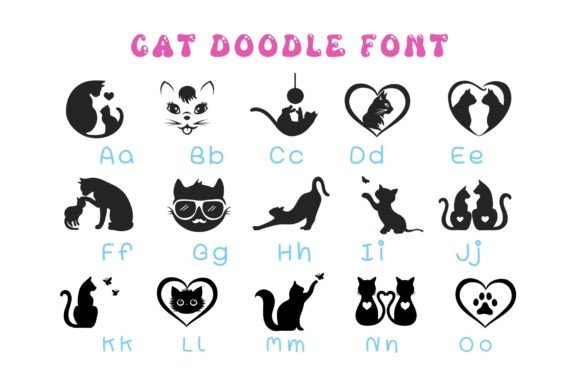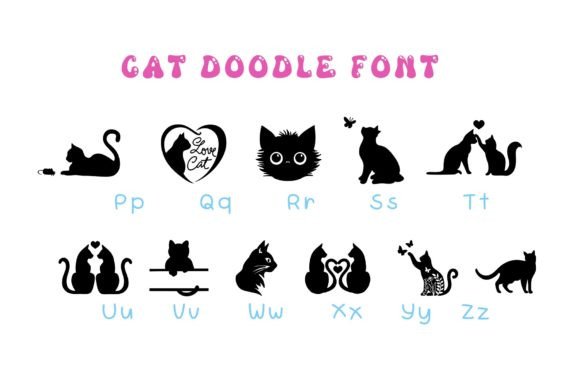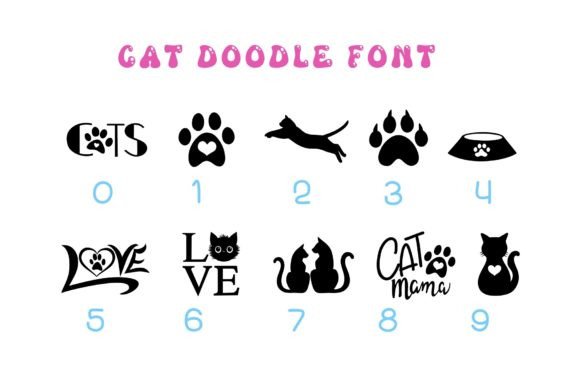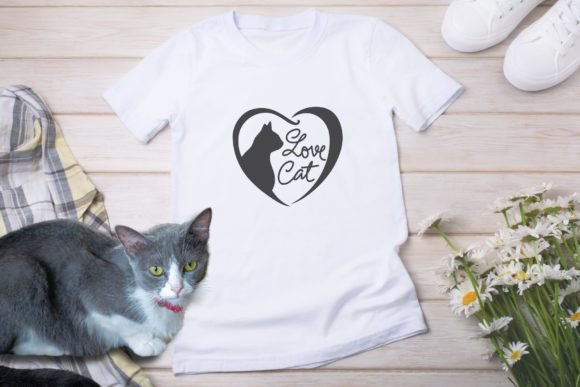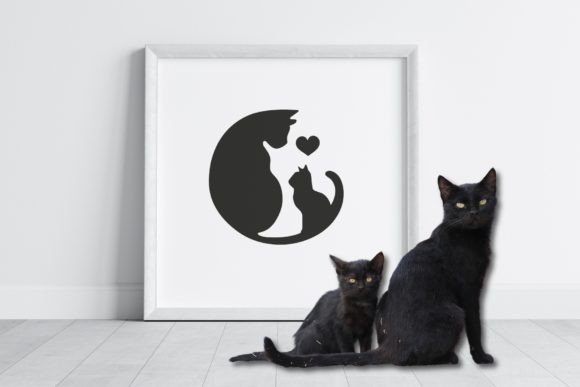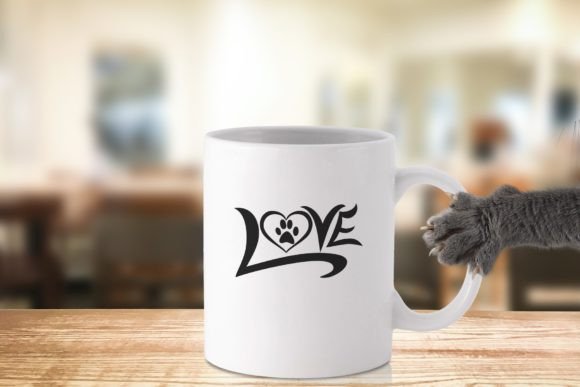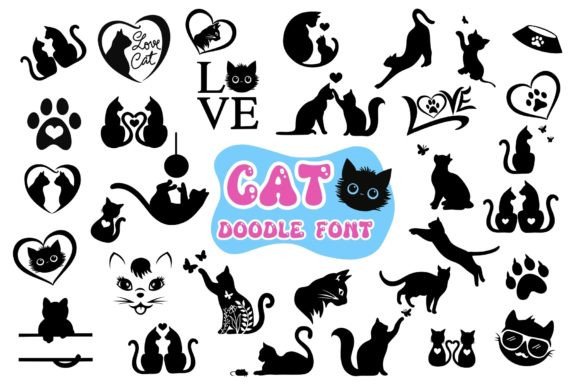
The Purrfect Font: A Deep Dive into Cat Doodle Font
I’ll never forget the time I was working on a project for a cat cafe, and I just couldn’t find the right font to capture their playful and affectionate vibe. The client wanted something that would appeal to cat lovers of all ages, and I was determined to deliver. That’s when I stumbled upon the Cat Doodle font, and it was love at first sight! 🐱
This charming dingbat font features adorable pairs of cats in love, shown in simple, black silhouettes. It’s perfect for adding a sweet, cat-themed touch to your designs, and I’m excited to share my experience with you.
An Honest Review of Cat Doodle Font
- ✨ The font is incredibly versatile and can be used for a wide range of projects, from greeting cards to social media graphics.
- ✅ The simple, black silhouettes make it easy to use and scale, without losing any detail or clarity.
- 😍 The adorable cat illustrations are sure to delight cat lovers and add a touch of whimsy to your designs.
While I absolutely love the Cat Doodle font, there are a few things to keep in mind:
- ⚠️ The font is a dingbat font, which means it’s primarily made up of symbols and illustrations, rather than traditional letters and numbers.
- 🤔 Some of the cat illustrations can be a bit intricate, so they may not work well at very small sizes.
One of the best things about the Cat Doodle font is its OpenType features and glyphs. With a range of stylistic alternates and glyphs to choose from, you can customize your text to fit your design needs.
The Story Behind Cat Doodle Font
The Cat Doodle font was created by a talented designer who wanted to capture the joy and affection of cat love. Inspired by their own feline friends, the designer set out to create a font that would bring a smile to cat lovers’ faces.
With its simple, black silhouettes and adorable cat illustrations, the Cat Doodle font is sure to delight designers and cat lovers alike.